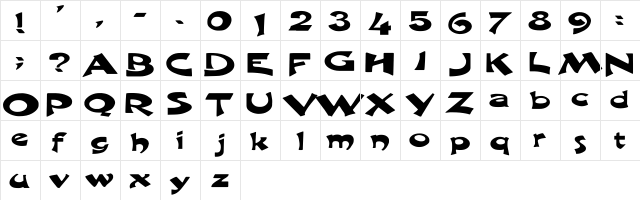
Harquil Ex Regular
Design Context for Harquil Ex Typeface
Harquil Ex is a composed and adaptable typeface that performs quietly and consistently across a wide range of design contexts.